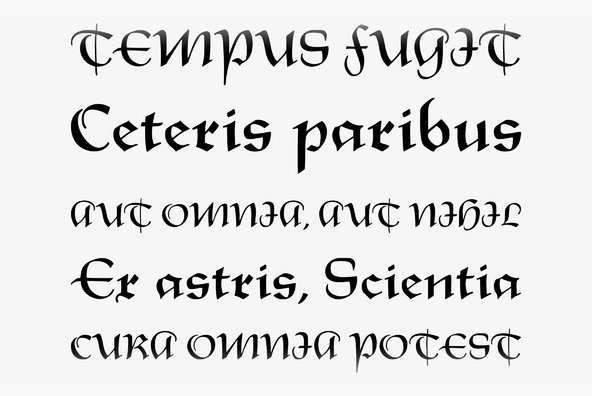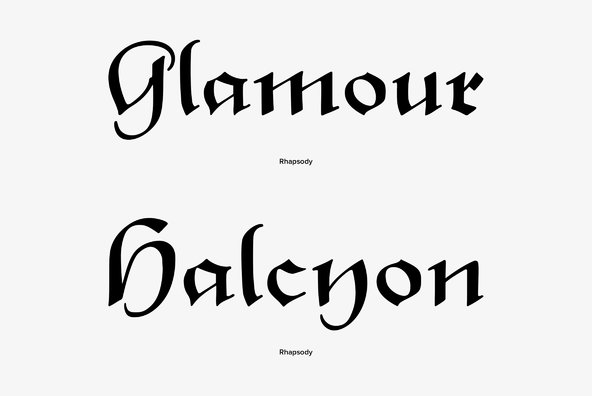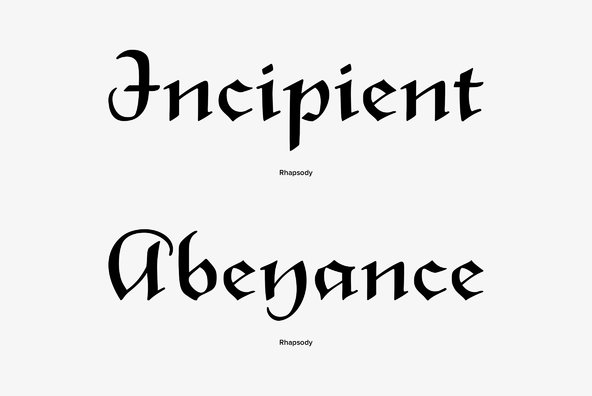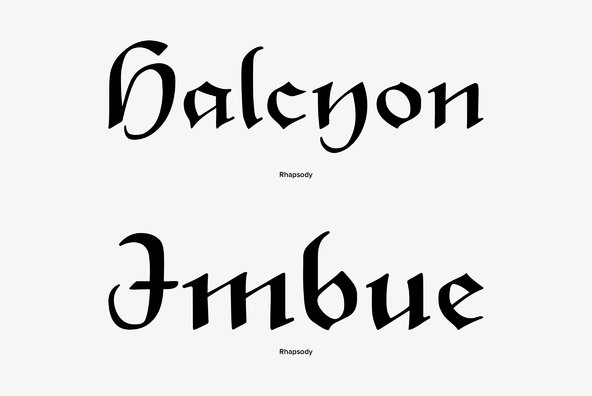
Rhapsody
Rhapsody is clearly showing Unger's love with Blackletters and Gothics. Other than many of the existing Blackletters, Rhapsody is really easy to read. The calligraphic forms of the upper case in connexion with its lower case appear very special, very unique. Rhapsody, having its origins in the 50ies, was redesigned, completed and expanded by Unger for the URW++ FontForum. TM Bauer Types, SL